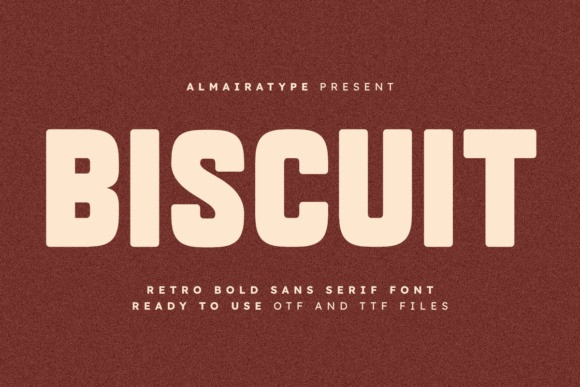
Biscuit Display Font
Biscuit Display Font is a bold retro sans serif font beautifully crafted to infuse your modern designs with a warm, nostalgic touch. Featuring a thick, heavy aesthetic with smooth rounded details, this typeface is an exceptional asset for graphic designers, independent clothing brands, craft enthusiasts, and Print on Demand (POD) sellers looking for high-impact typography. It is perfectly tailored for establishing professional brand identity, creating eye-catching t-shirt designs, retro apparel layouts, lifestyle product packaging, and corporate merchandise. Whether you are building bold logotypes, social media graphics, or striking poster headlines, Biscuit ensures optimal readability alongside an effortlessly trendy, vintage charm. Its solid, blocky weight makes it highly favored by crafters utilizing vinyl cutting machines like Cricut and Silhouette, offering incredibly clean outlines that are remarkably easy to cut and weed. Elevate your creative toolkit and make a strong, professional statement across both digital and physical media platforms with the distinct presence of the Biscuit typeface.